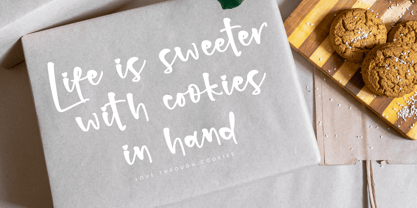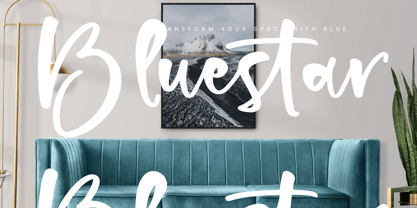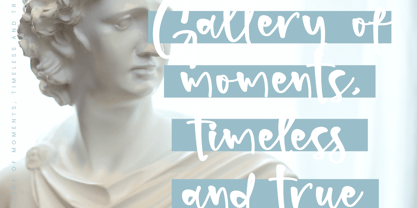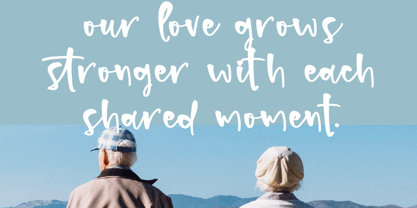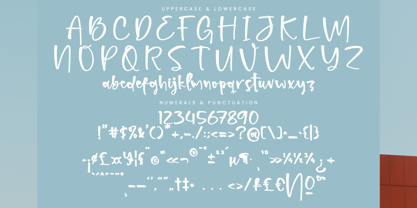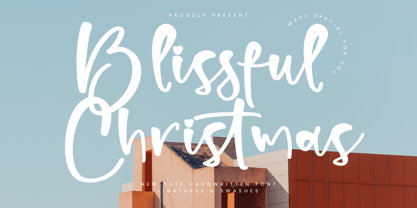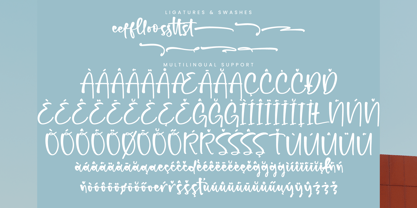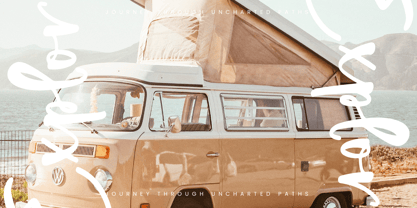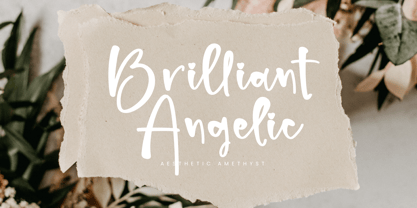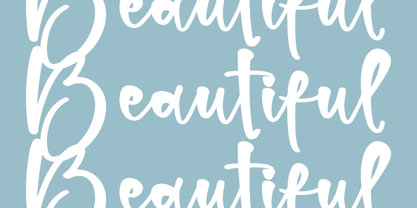
Blissful Christmas
Die Schriftfamilie Blissful Christmas wurde von Ranndy Rizky Febrian entworfen und von Integritype veröffentlicht. Blissful Christmas enthält 2 Stile und Familienpaketoptionen.
Blissful Christmas - New Cute Handwritten Font, from Integritype Studio, perfect for any project like: logos, branding projects, homewares designs, product packaging, mugs, quotes, posters, shopping bags, t-shirts, covers books, business cards, invitation cards, greeting cards, labels, photography, watermarks, special events and all your other luxury projects that require a premium taste.